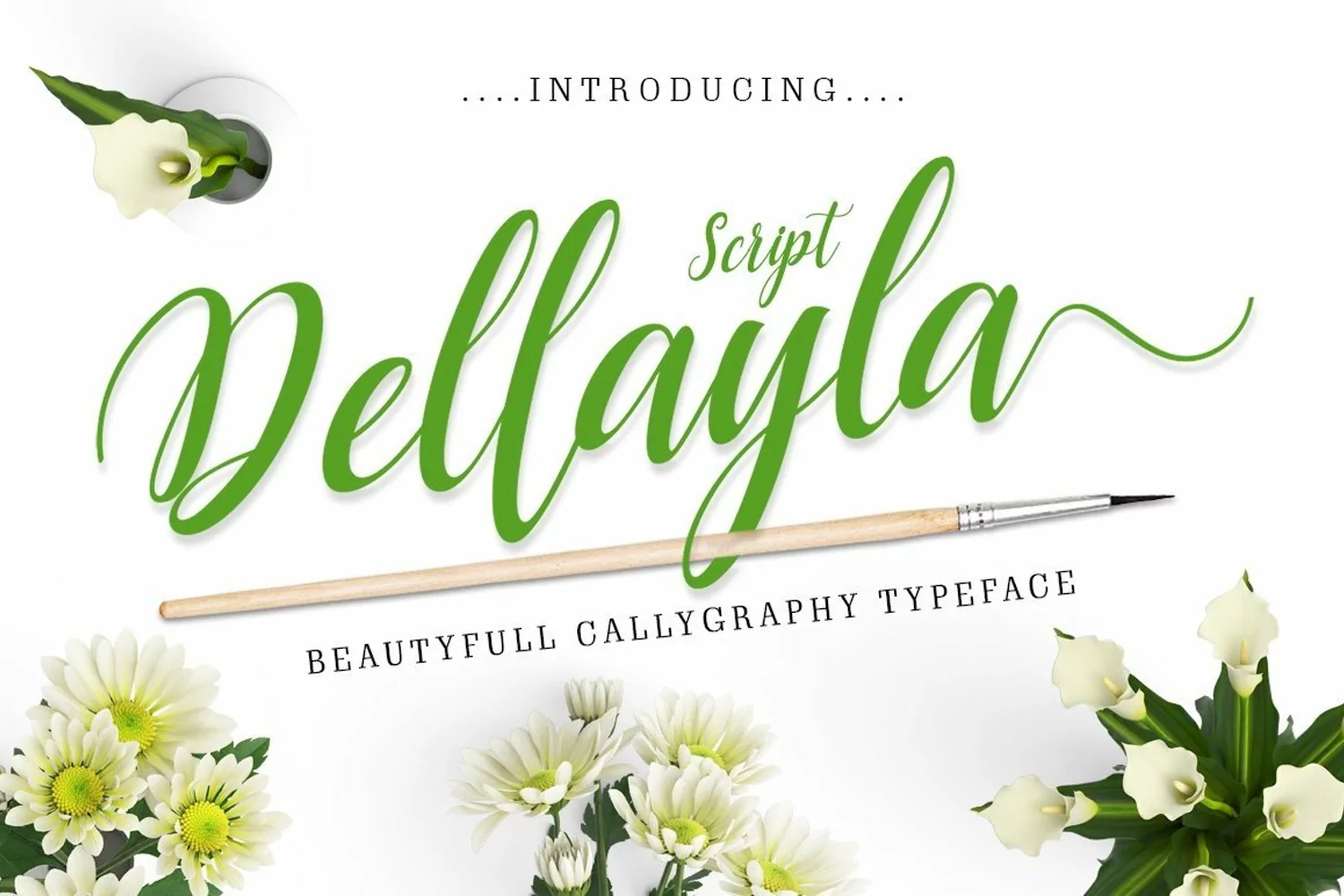
Web Font Dellayla Script
Introducing
Dellayla Script
Dellayla Script a new fresh & modern script with a handmade calligraphy style, decorative characters and a dancing baseline! So beautiful on invitation like greeting cards, branding materials, business cards, quotes, posters, and more!!Dellayla Script come with 235+ glyphs. The alternative characters were divided into several Open Type features such as Swash, Stylistic Sets, Stylistic Alternates, Contextual Alternates.
Dellayla Script Web Font